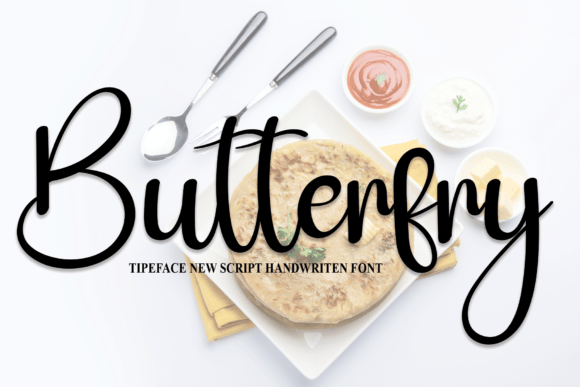
Unveil your creative vision with Butterfry Font, a script font family tailored to elevate your headlines with a touch of elegance and allure. Crafted by the skilled hands of Strongkeng Old, Butterfly Font is a symphony of flowing strokes and graceful curves, reminiscent of a gentle summer breeze.
Step into a world of endless possibilities with Butterfry Font. Its sweet and smooth handwritten style evokes a sense of warmth and intimacy, making it the perfect choice for adding a personal touch to your designs. Whether you're creating wedding invitations, greeting cards, or any project that calls for a romantic and playful vibe, Butterfry Font is sure to captivate and charm.
With Butterfry Font, you'll find a font family that's as versatile as it is visually stunning. Its delicate lines and playful charm make it an ideal choice for crafting eye-catching headlines, logos, branding materials, and social media graphics. The font's inherent elegance also lends itself beautifully to fashion and beauty-related designs, adding a touch of sophistication and allure.
Express your creativity like never before with Butterfry Font. Its enchanting characters dance across the page, adding a touch of magic to your words. Create designs that resonate with your audience, leaving a lasting impression that lingers in their minds. Let Butterfry Font be your creative partner, helping you weave tales of love, joy, and inspiration through the art of typography.